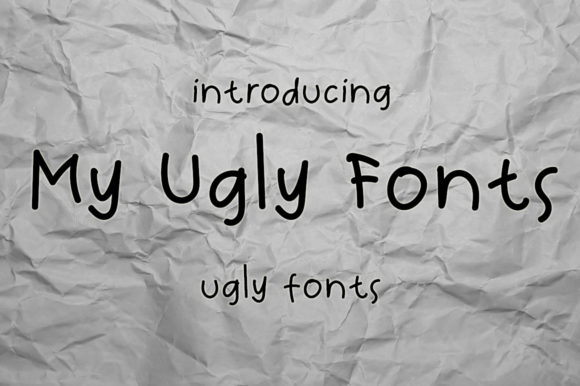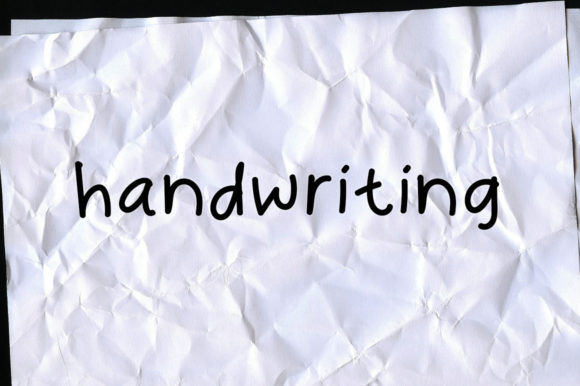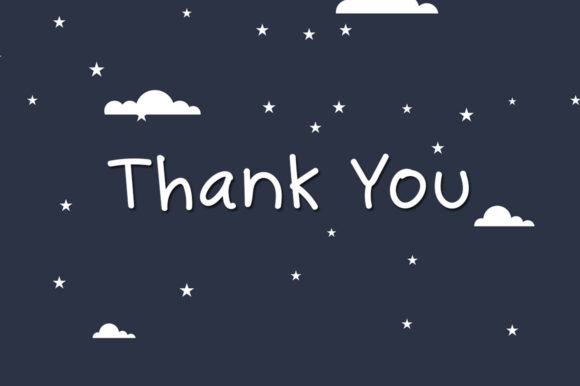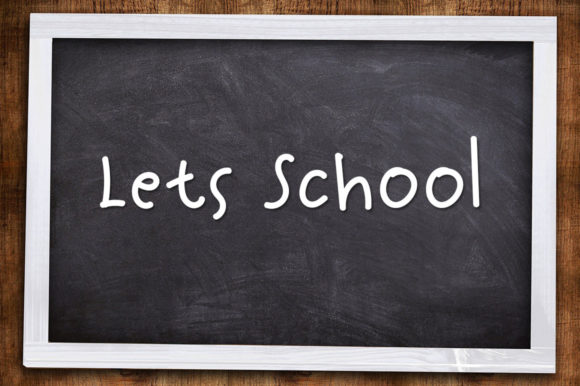
My Ugly Font
About My Ugly Font
“My Ugly” is introduced as a beautiful and sweet handwritten font that possesses freshness, cleanliness, and elegance. The description suggests that the font is versatile, making it suitable for a wide range of projects, both formal and informal, and promises to add a joyful touch to designs.
The use of the term “beautiful and sweet” implies that “My Ugly” carries a pleasant and delightful aesthetic, making it appealing for designs that aim to evoke positive and charming emotions. Handwritten fonts often contribute a personal and authentic touch to text, enhancing the overall visual appeal of designs.
The descriptors “fresh, clean, and elegant” suggest that “My Ugly” has a contemporary and refined style. This versatility allows the font to adapt to different design contexts, from more formal and sophisticated projects to casual and friendly ones.
The emphasis on adding an incredibly joyful touch indicates that the font is designed to bring a sense of joy and positivity to the designs it is applied to. This quality can make “My Ugly” a valuable choice for projects where a lively and cheerful atmosphere is desired.
In summary, “My Ugly” is presented as a beautiful, sweet, and versatile handwritten font with a contemporary and joyful touch. Its freshness, cleanliness, and elegance contribute to its adaptability across various design projects, making it a potentially valuable asset for designers seeking a typeface that adds charm and authenticity to their creations.